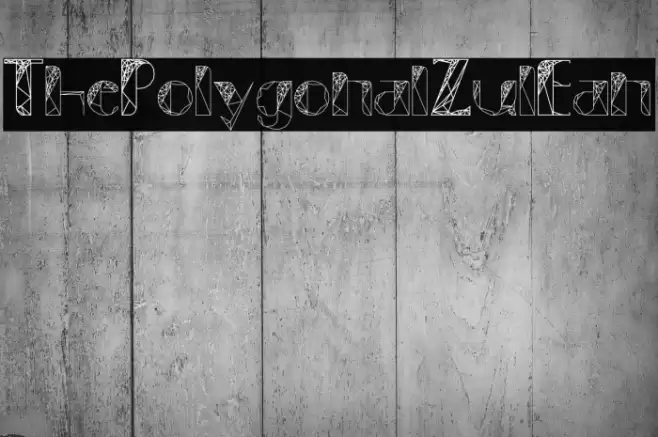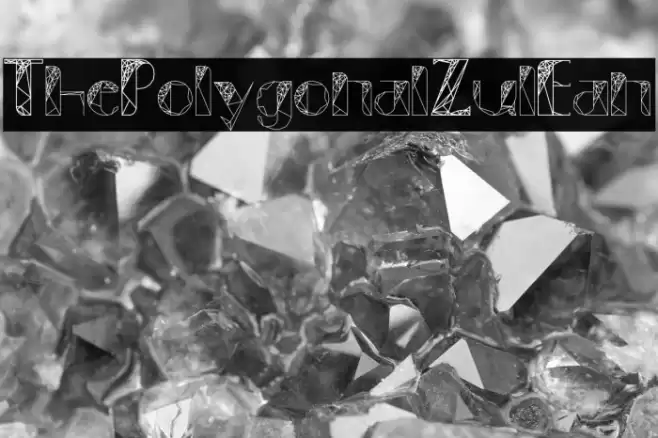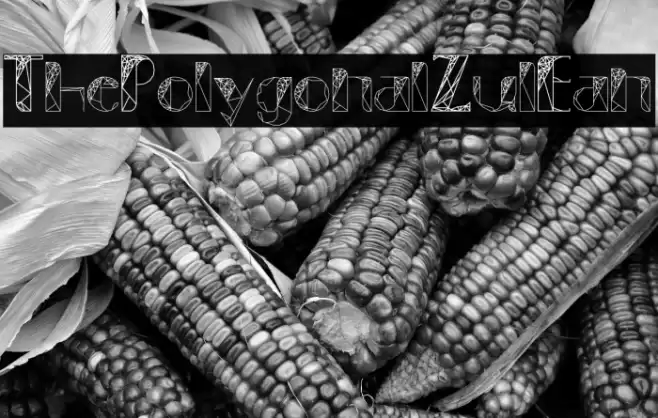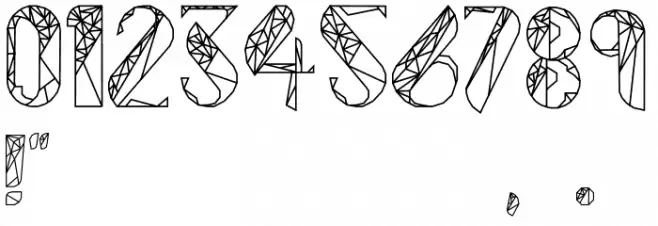
ThePolygonal-ZulEan Font
ThePolygonal-ZulEan Description
This font features a unique geometric design with polygonal shapes forming each character. The letters are constructed with a series of interconnected lines and triangles, creating a modern and abstract appearance. The uppercase and lowercase letters maintain a consistent style, with sharp angles and a sense of depth. Numbers and special characters follow the same design principles, ensuring a cohesive look across all elements. The font's intricate design makes it stand out, ideal for projects that require a bold and artistic touch.
A geometric font with polygonal shapes and interconnected lines from Decorative fonts.
- Proposed Projects: Ideal for modern art projects, tech branding, posters, and creative digital media.
- Use Case: Logos, Posters, Headlines